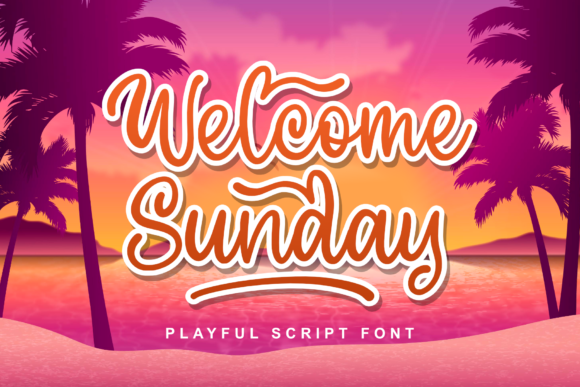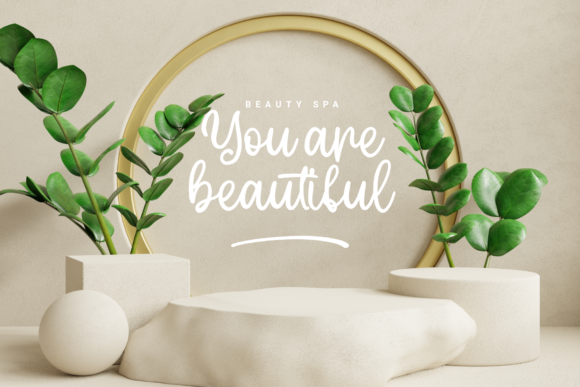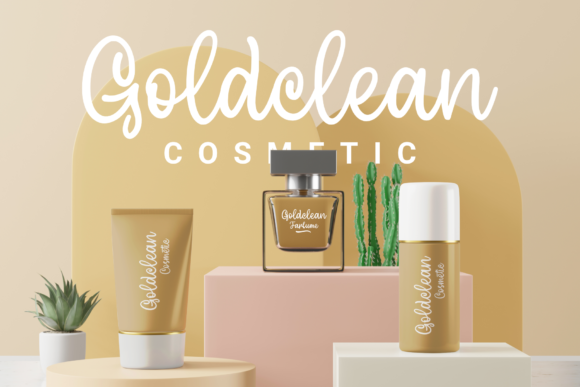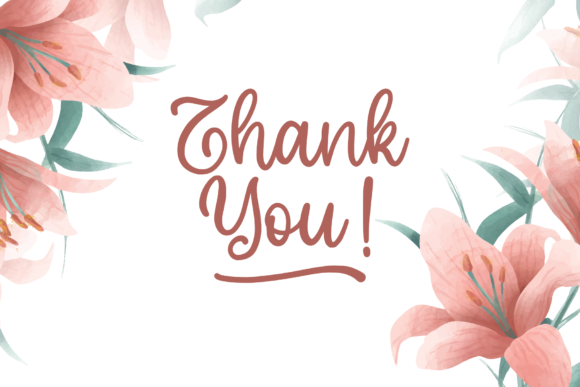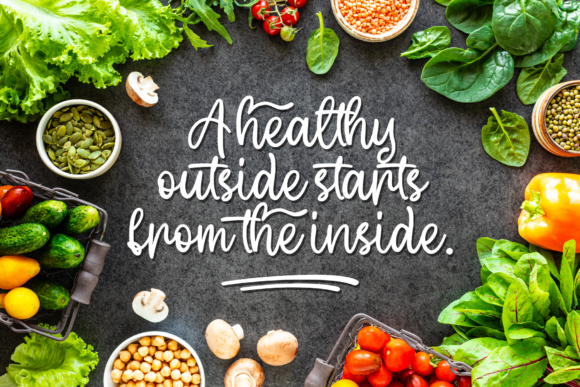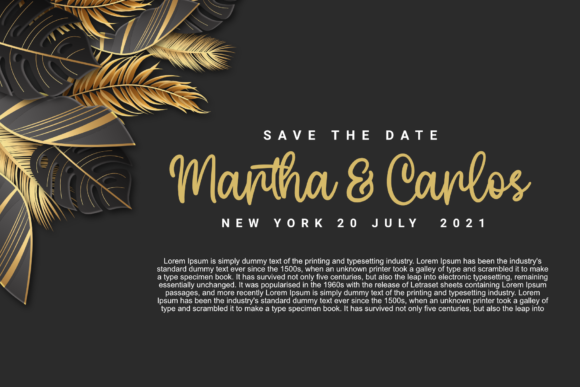
Welcome Sunday Font
About Welcome Sunday Font
Welcome Sunday is a lovely script font featuring charming, playful characters that seem to dance along the baseline. Add this font to your most creative ideas, and notice how it makes them stand out!